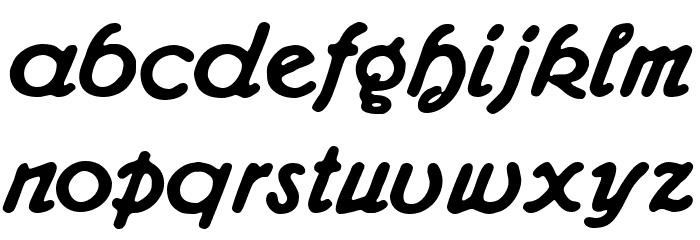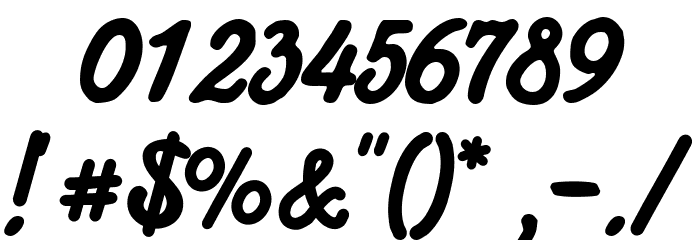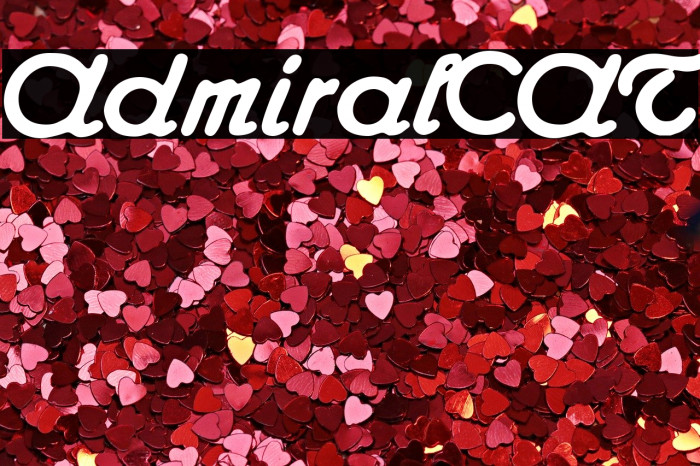
AdmiralCAT Font
This font features a bold, cursive style with a playful and dynamic appearance. The letters are connected, giving it a flowing script-like quality. The uppercase letters are slightly more elaborate, with some featuring unique flourishes, while the lowercase letters maintain a consistent and smooth form. The numbers and special characters are designed to match the overall style, ensuring a cohesive look across all characters. This font's boldness and fluidity make it stand out, while its rounded edges add a touch of softness.
A bold, cursive font with a playful and flowing style.